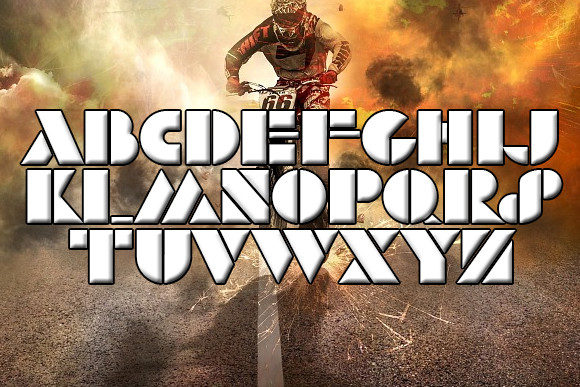
Unleash Your Creativity with Army Phantom Font: The Ultimate Stencil-Type Display Font
Are you a designer, crafty enthusiast, or simply someone who loves to experiment with typography? Look no further! In this article, we’ll introduce you to the Army Phantom Font, an awesome stencil-type display font that’s sure to elevate your creative projects. With its unique blend of geometric shapes and cool vibes, this font is perfect for making a statement on posters, flyers, and other visual materials.
What is Army Phantom Font?
Army Phantom Font is a stencil-type display font designed to add an edgy, modern touch to your designs. Its geometric shapes and bold lines create a striking visual effect that’s sure to grab attention. Whether you’re working on a poster, flyer, or any other project that requires a bold, eye-catching font, Army Phantom is an excellent choice.
Key Features of Army Phantom Font
- Geometric Shapes: Army Phantom Font features geometric shapes that give it a unique, modern look. The font’s shapes are carefully crafted to create a sense of balance and harmony, making it perfect for designs that require a touch of sophistication.
- Cool Vibes: This font exudes cool vibes, making it perfect for designs that require a laid-back, edgy feel. Whether you’re working on a poster for a music festival or a flyer for a trendy cafe, Army Phantom Font is sure to fit the bill.
- Stencil-Type Design: The font’s stencil-type design makes it perfect for creating bold, eye-catching designs. The font’s lines are clean and precise, making it easy to read and understand.
- Versatility: Army Phantom Font is incredibly versatile, making it suitable for a wide range of design projects. Whether you’re working on a poster, flyer, or social media graphic, this font is sure to make a statement.
Why Use Army Phantom Font?
So, why should you use Army Phantom Font for your design projects? Here are just a few reasons:
- Adds Visual Interest: Army Phantom Font adds visual interest to your designs, making them more engaging and attention-grabbing.
- Creates a Statement: This font is perfect for making a statement on posters, flyers, and other visual materials. Its bold lines and geometric shapes create a striking visual effect that’s sure to grab attention.
- Easy to Read: Despite its bold design, Army Phantom Font is easy to read and understand. This makes it perfect for designs that require a clear, concise message.
- Customizable: Army Phantom Font is highly customizable, making it easy to experiment with different colors, textures, and effects.
How to Use Army Phantom Font?
Using Army Phantom Font is easy! Here are just a few tips to get you started:
- Pair with Other Fonts: Army Phantom Font pairs well with other fonts, making it easy to create a unique and visually appealing design.
- Experiment with Colors: Don’t be afraid to experiment with different colors and textures to give your design a unique look and feel.
- Use on Posters and Flyers: Army Phantom Font is perfect for posters and flyers, making it a great choice for promoting events, products, or services.
- Try on Social Media: This font is also great for social media graphics, making it easy to create eye-catching and engaging content.